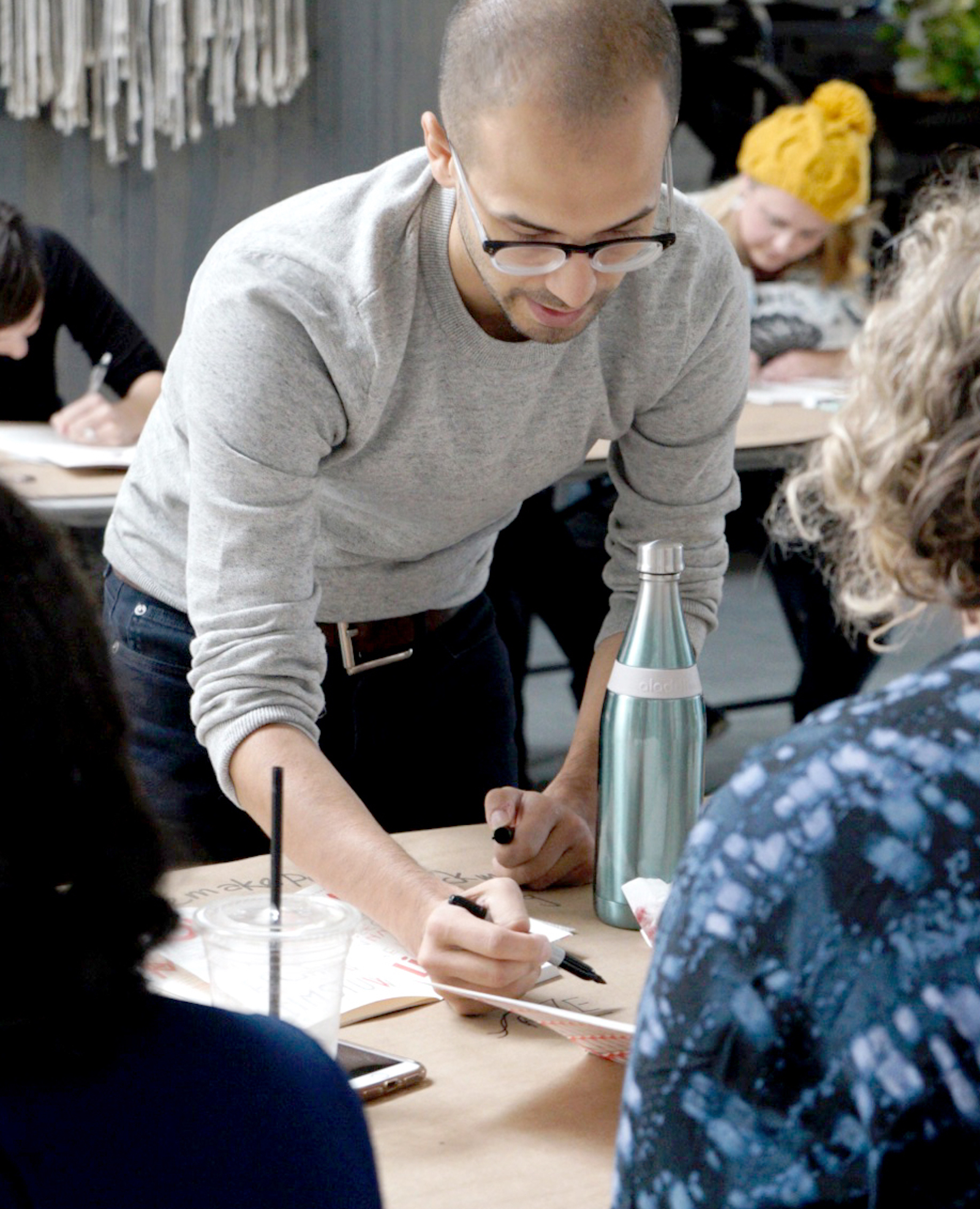
Workshop Nº7 Art Déco lettering workshop with Nick Misani
Learn the secrets of historical typography with this hands-on workshop on Art Deco lettering. Popular in the roaring 20s and 30s, this style embodies the glamour, luxury, and exuberance of the Great Gatsby Era.
In this one day class, Nick will quickly cover the foundations of lettering and briskly segue into dramatic uppercase letterforms, unexpected ligatures, geometric scripts, and ornamentation. You’ll learn three Art Deco hand lettering styles to prepare you for your final project: a postcard for a 1920/30s jazz club.